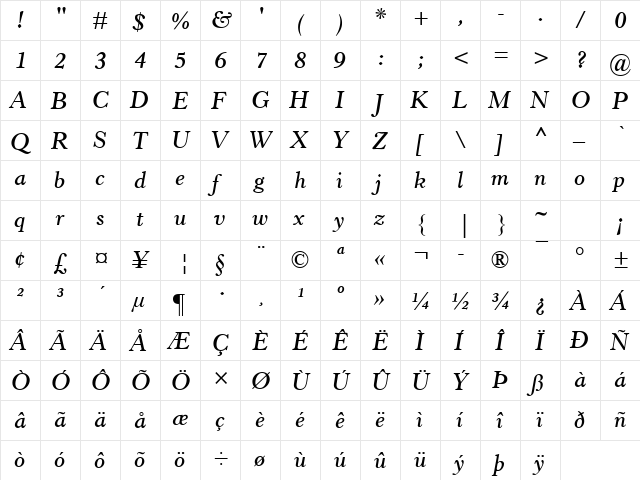
Horley Old Style MT SemiBold Italic
Design Context for Horley Old Style MT SemiBold Typeface
Horley Old Style MT SemiBold is a composed and adaptable typeface that performs quietly and consistently across a wide range of design contexts. The dynamic lean of this cut emphasises speed and emphasis in any layout. The heavy weight commands attention and anchors typographic hierarchies.
Pro Tip: Use Horley Old Style MT SemiBold for emphasis, pull quotes, and subheadings where its slanted energy can add rhythm to the layout.